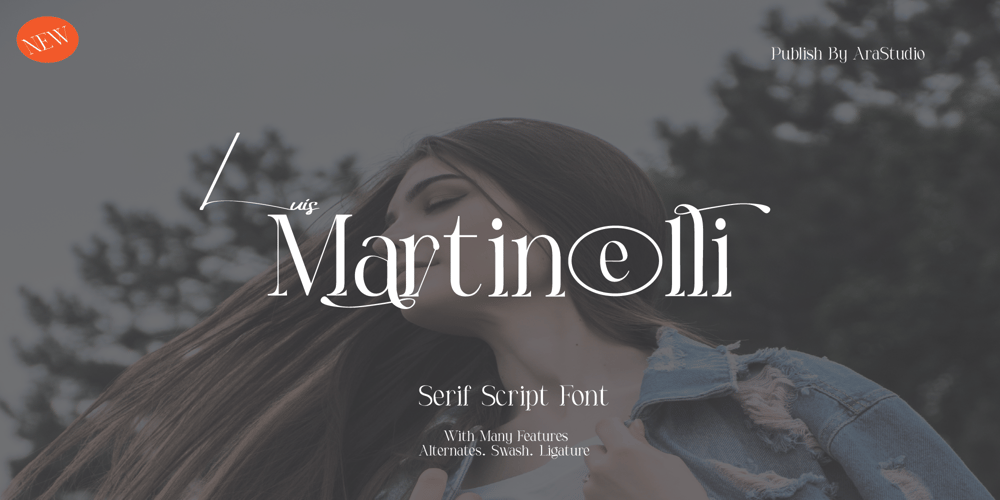
Martinelli
Martinelli font
Martinelli Font Family was designed by akhmad rizki cahyadi and published by Mazkicibe. Martinelli contains 2 styles and family package options. Luis Martinelli Serif and Script Font is Beautyful Serif and Script modern font combined with a sweet touch and beautifully curved each letter. Equipped with stunning character alternatives to make your design more strikin. using a touch of soft curves so that it is pleasing to the eye.Luis Martinelli Font is great for: Wedding invitations, fashion, magazines, logos, signatures, and suitable for watermark. photography, branding, merchandise and so on. Type and type now to pour your creative ideas….Features: Uppercase, Lowercase, Numeral, Punctuation, Multilingual, Alternates, Ligatures & PUA Encoded. Obtained file format: Otf, Ttf